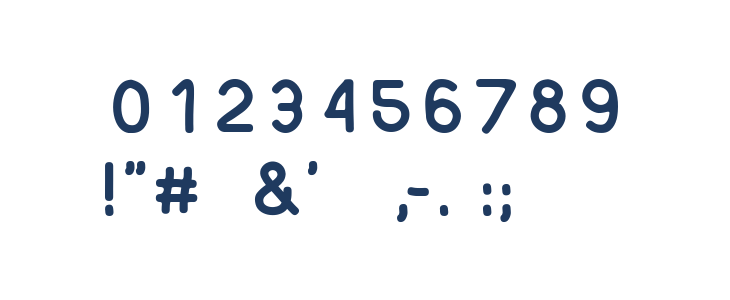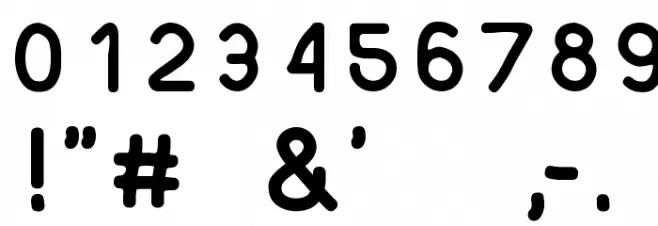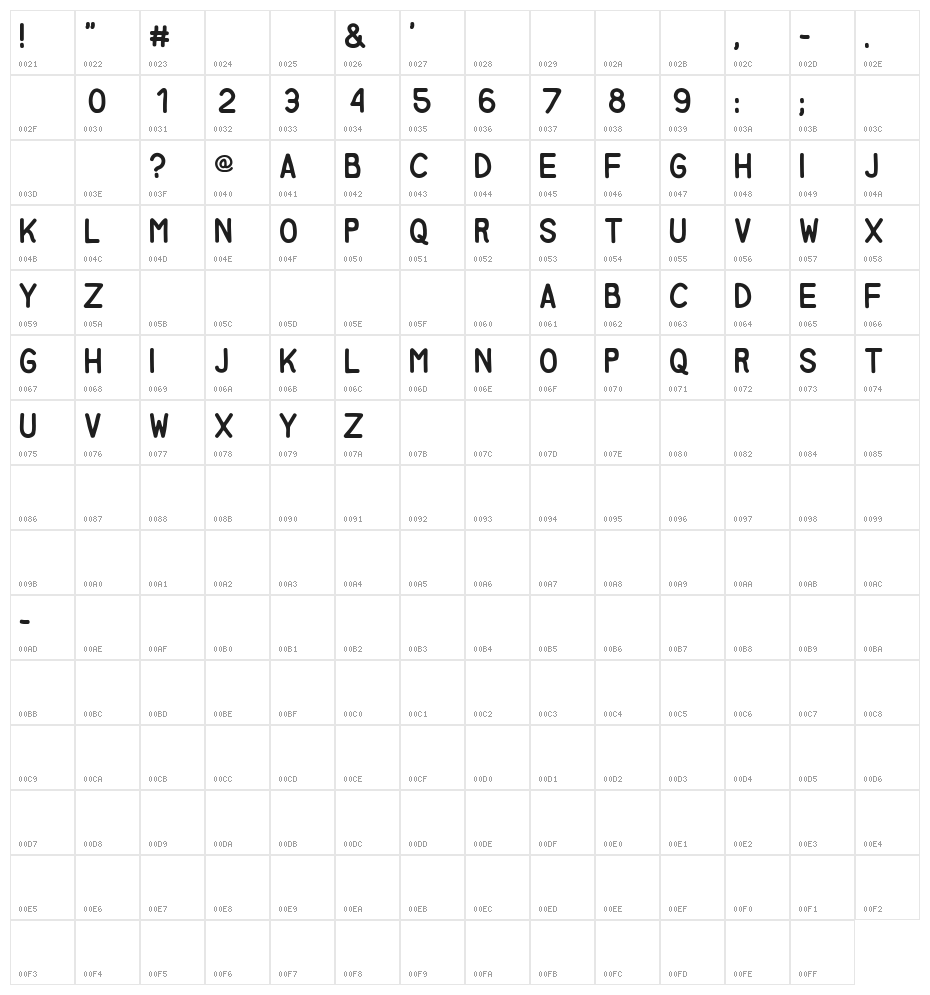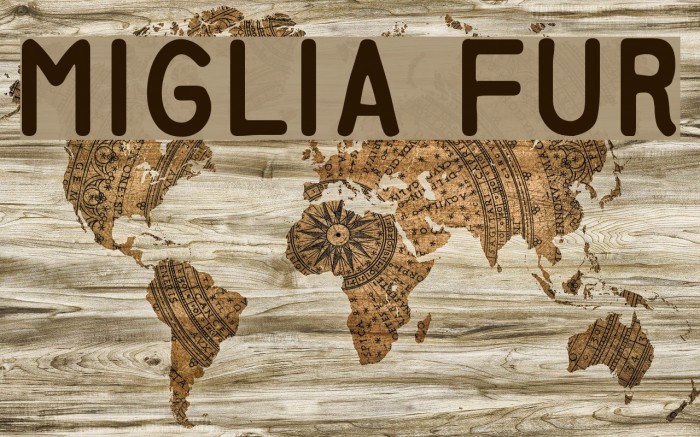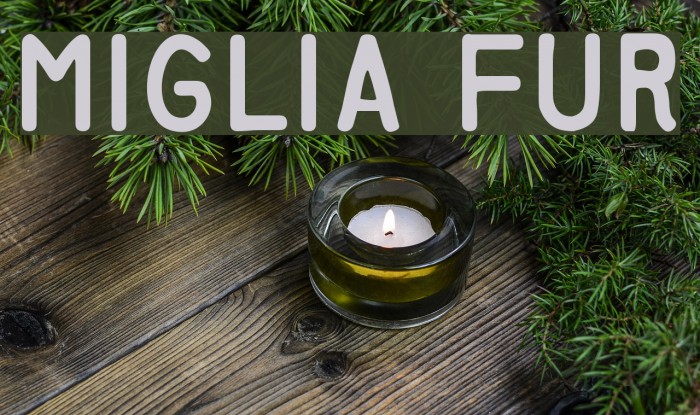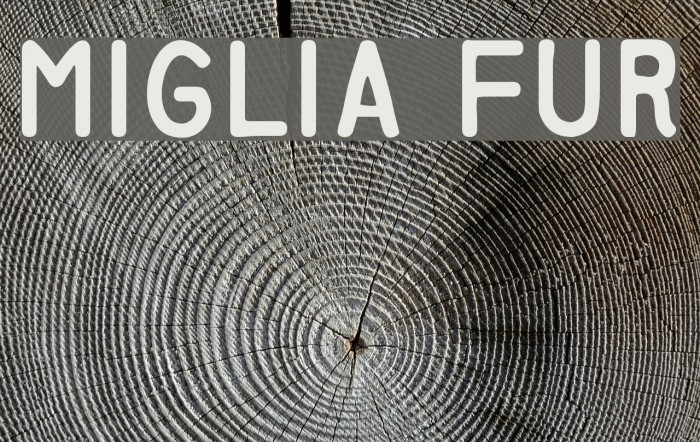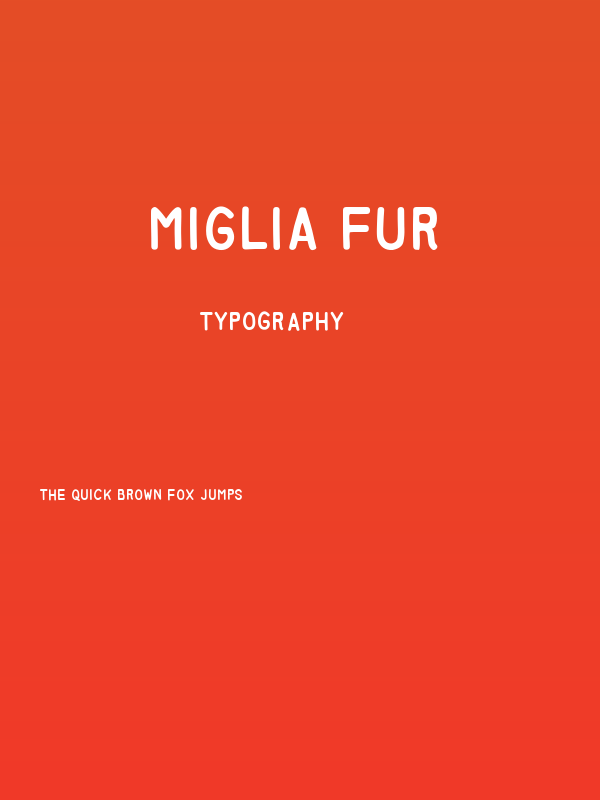
Miglia Fur Font
Miglia Fur Description
This font features a clean and rounded sans-serif style, characterized by its smooth curves and uniform stroke width. The letters are evenly spaced, providing a balanced and approachable appearance. The rounded edges give it a friendly and modern feel, making it suitable for various design applications. The numerals and special characters maintain the same rounded aesthetic, ensuring consistency across all elements. This font's simplicity and clarity make it highly legible, even at smaller sizes, while its contemporary style adds a touch of modernity to any project.